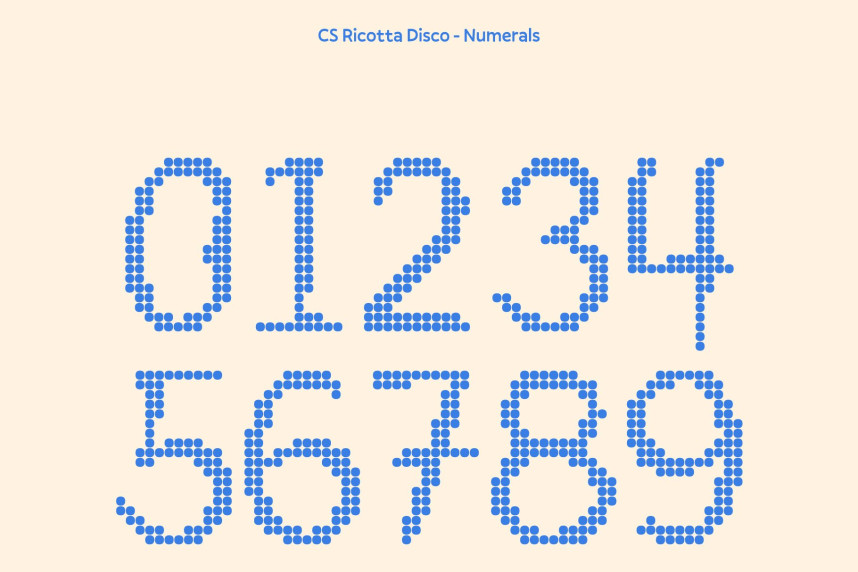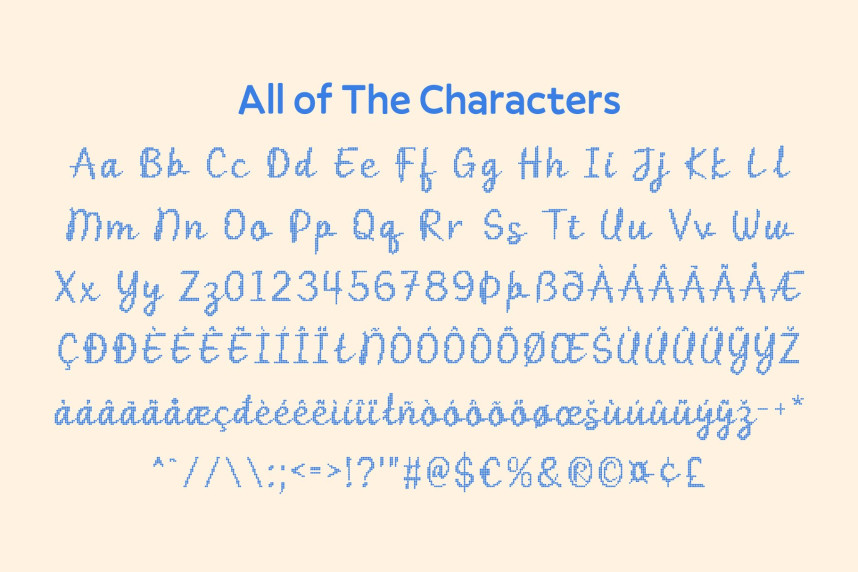
CS Ricotta Disco Font
CS Ricotta Disco Font – Dot Style Script Font with Party Glamour Sparkling Handwritten Design. This Dot transforms the graceful, flowing script into a lively, dotted display that radiates energy and fun. Each stroke is made up of playful dots, creating a shimmering, sparkling effect reminiscent of disco lights reflecting across the dance floor. It keeps the elegance of the original handwriting while injecting a vibrant, celebratory personality.